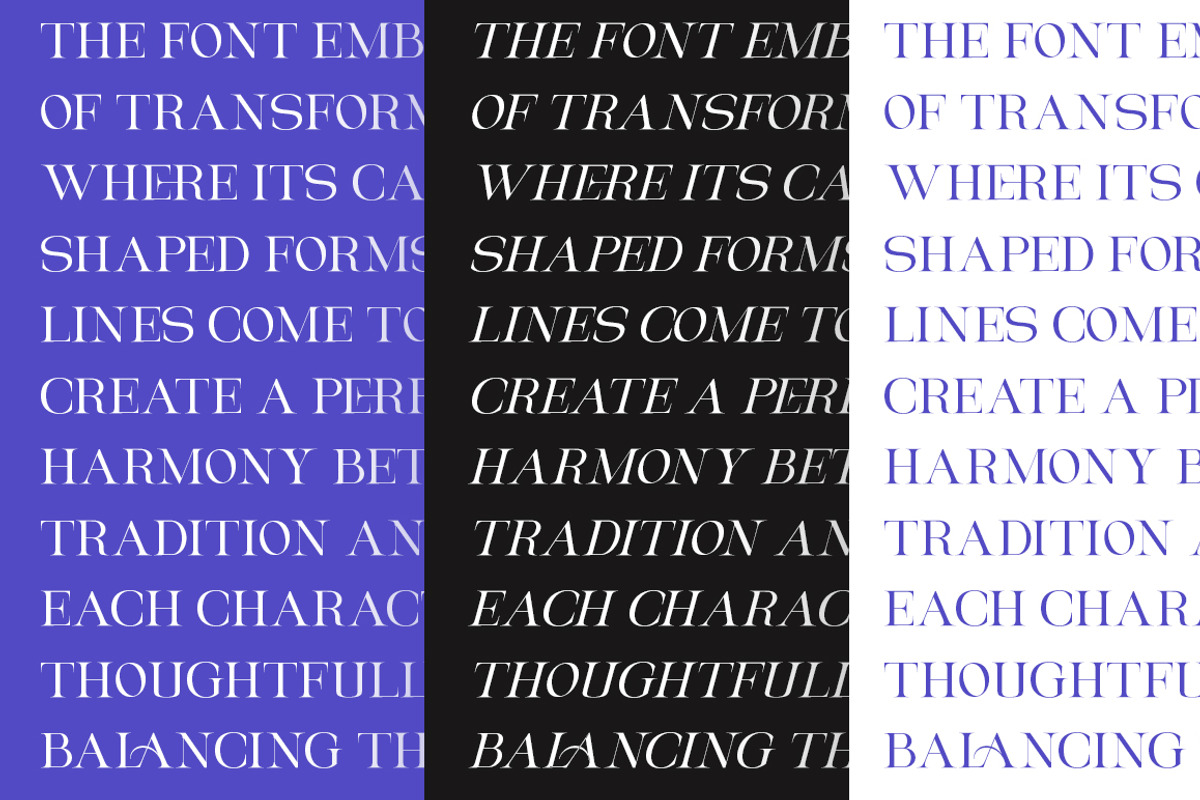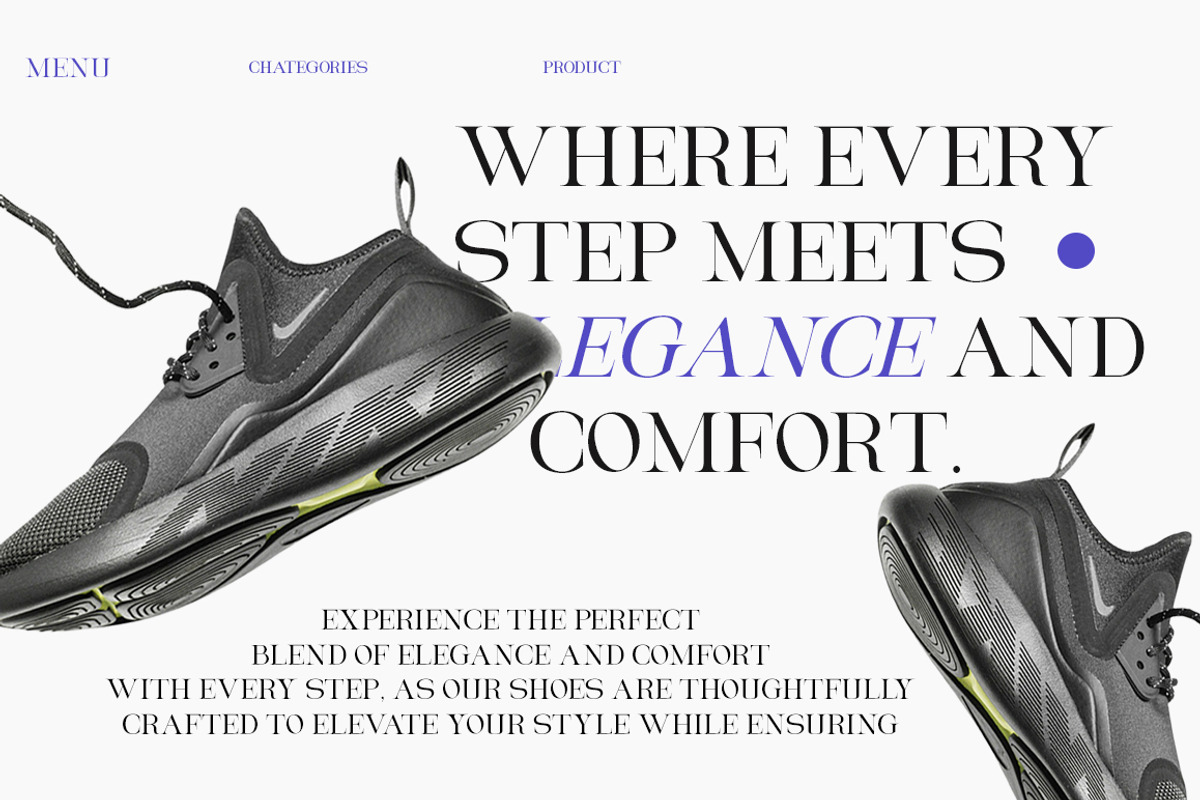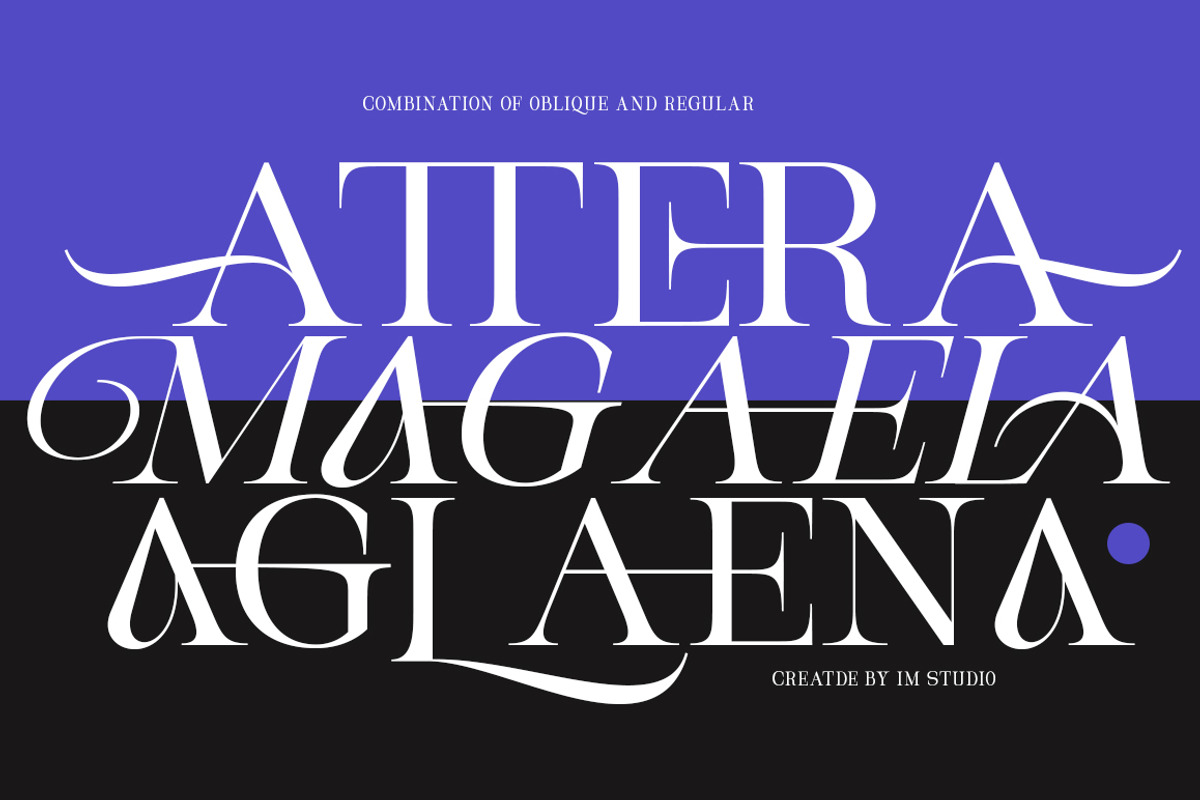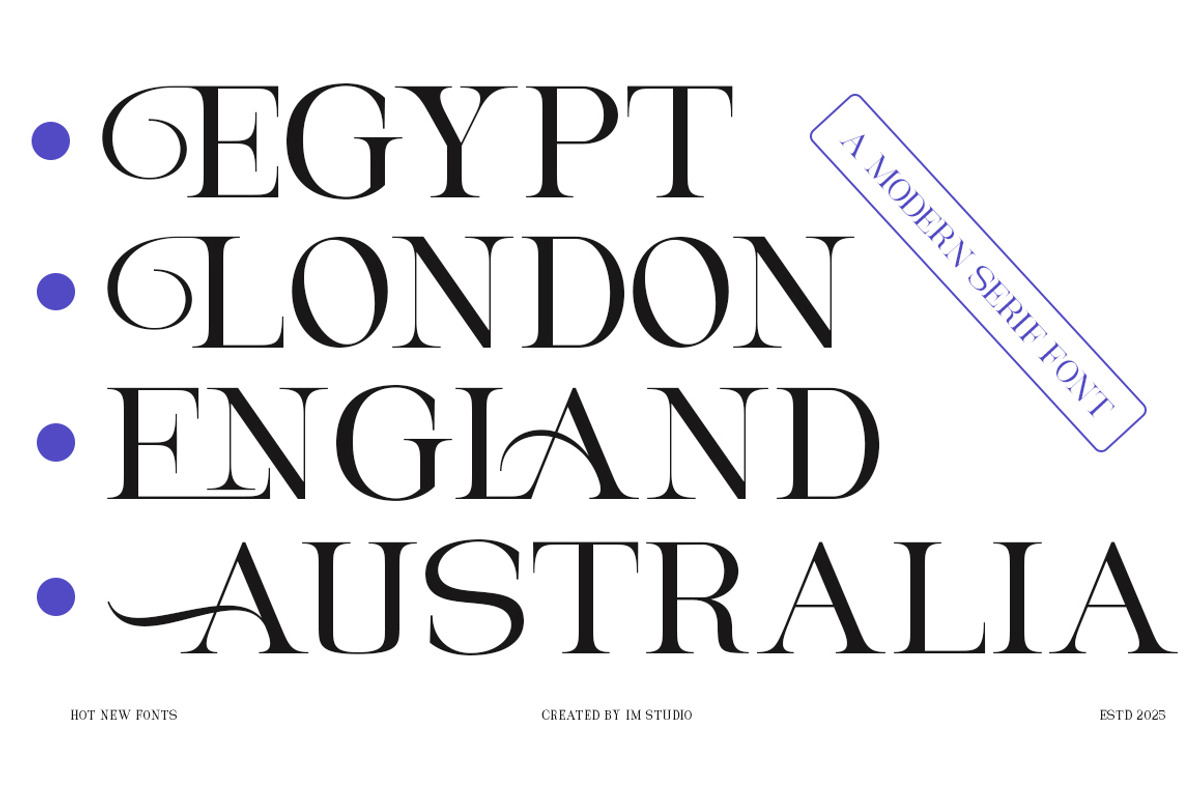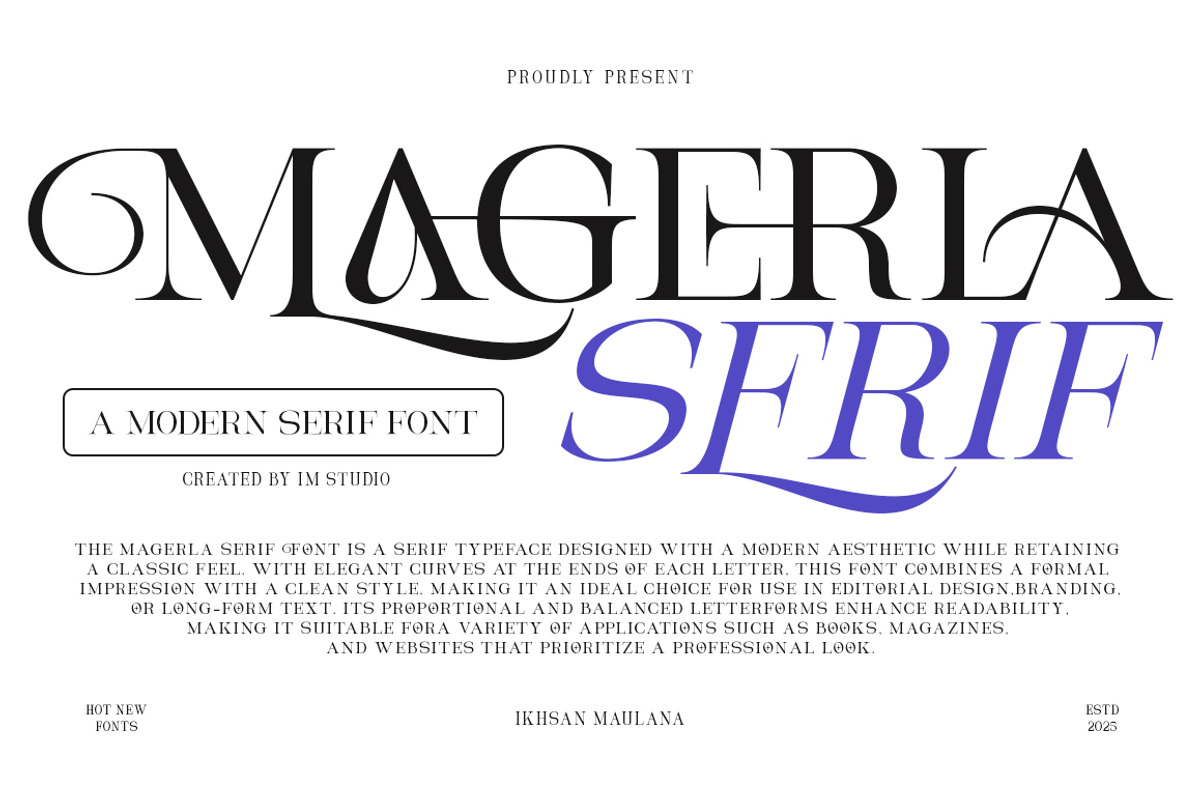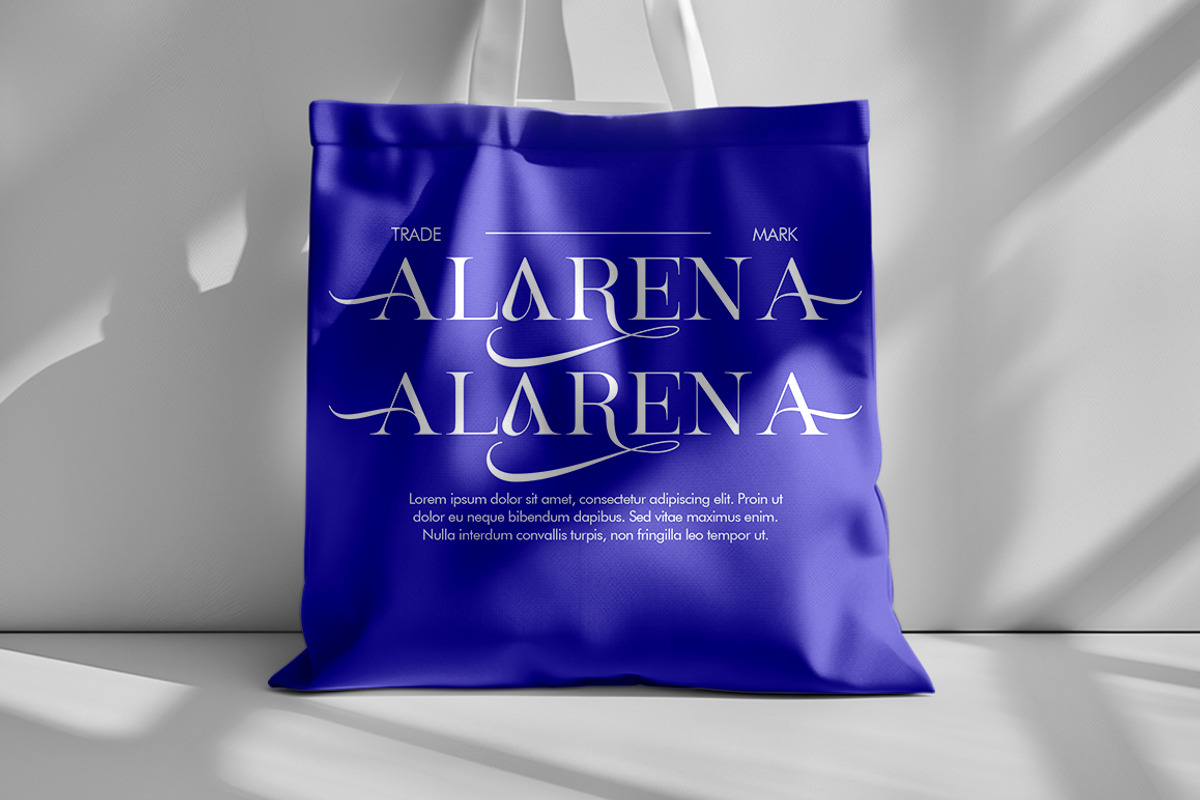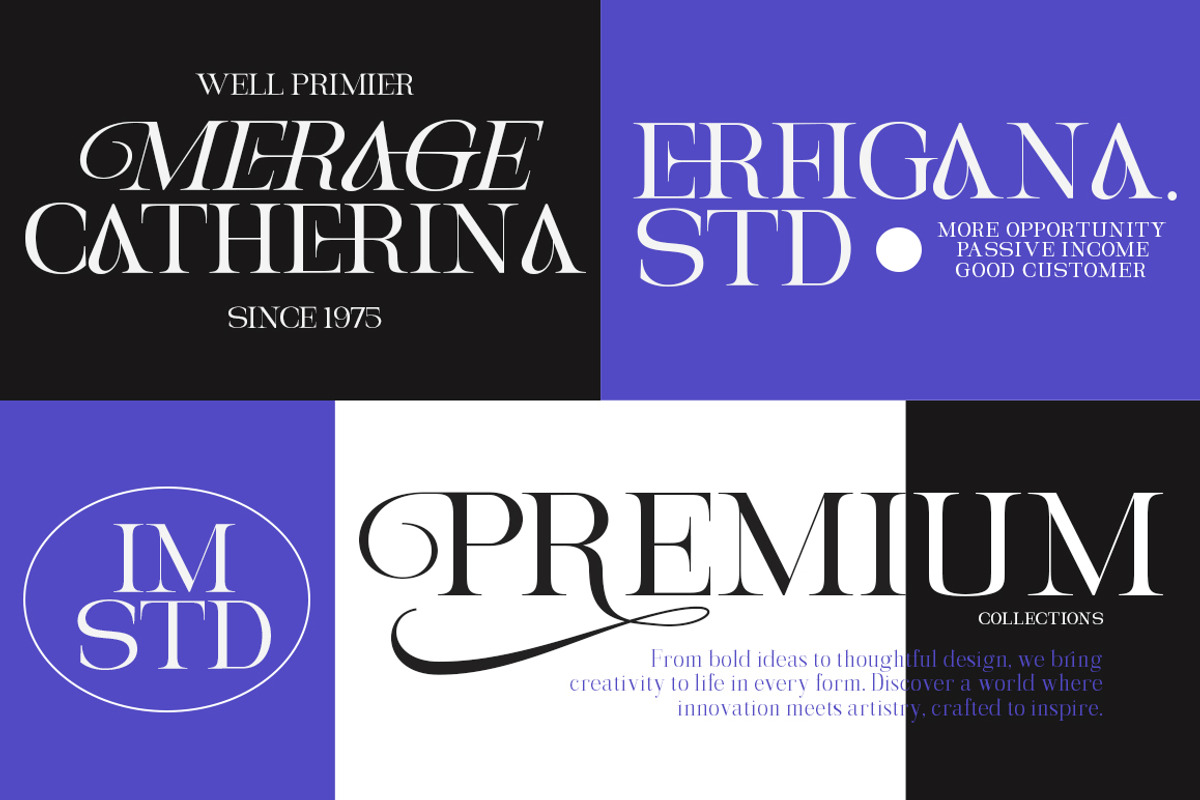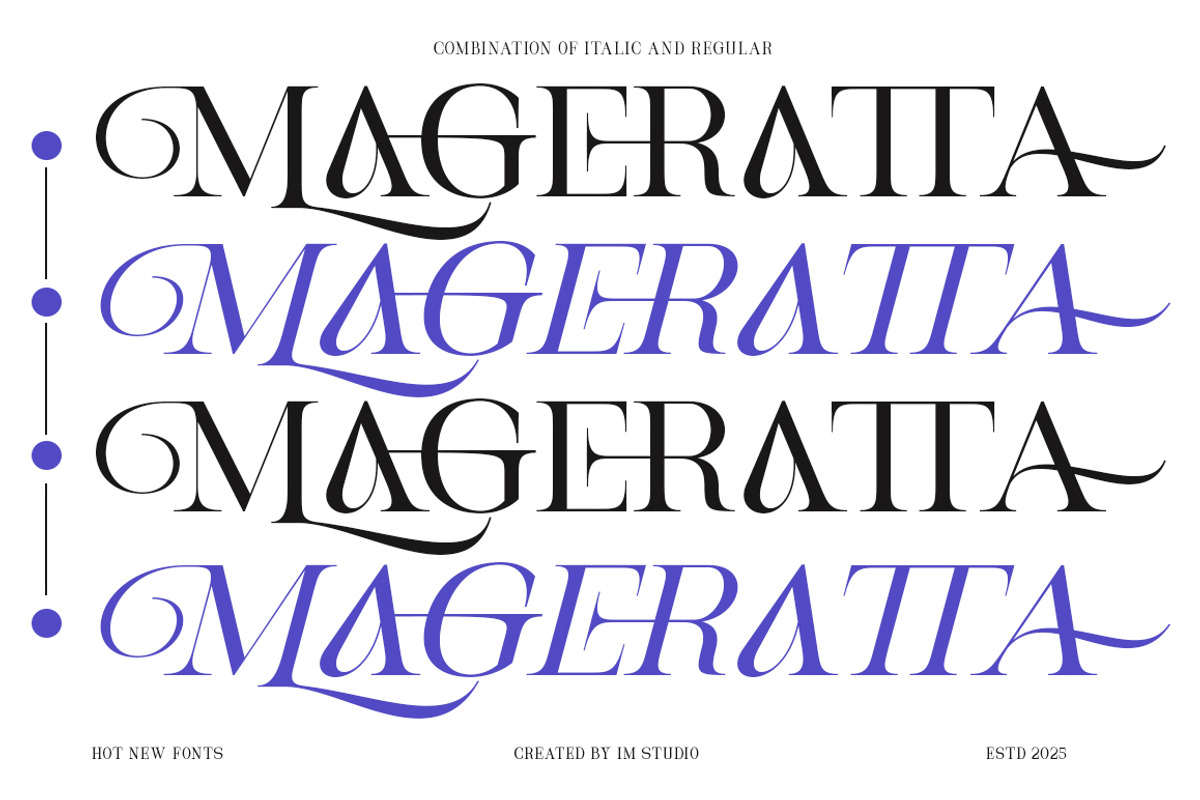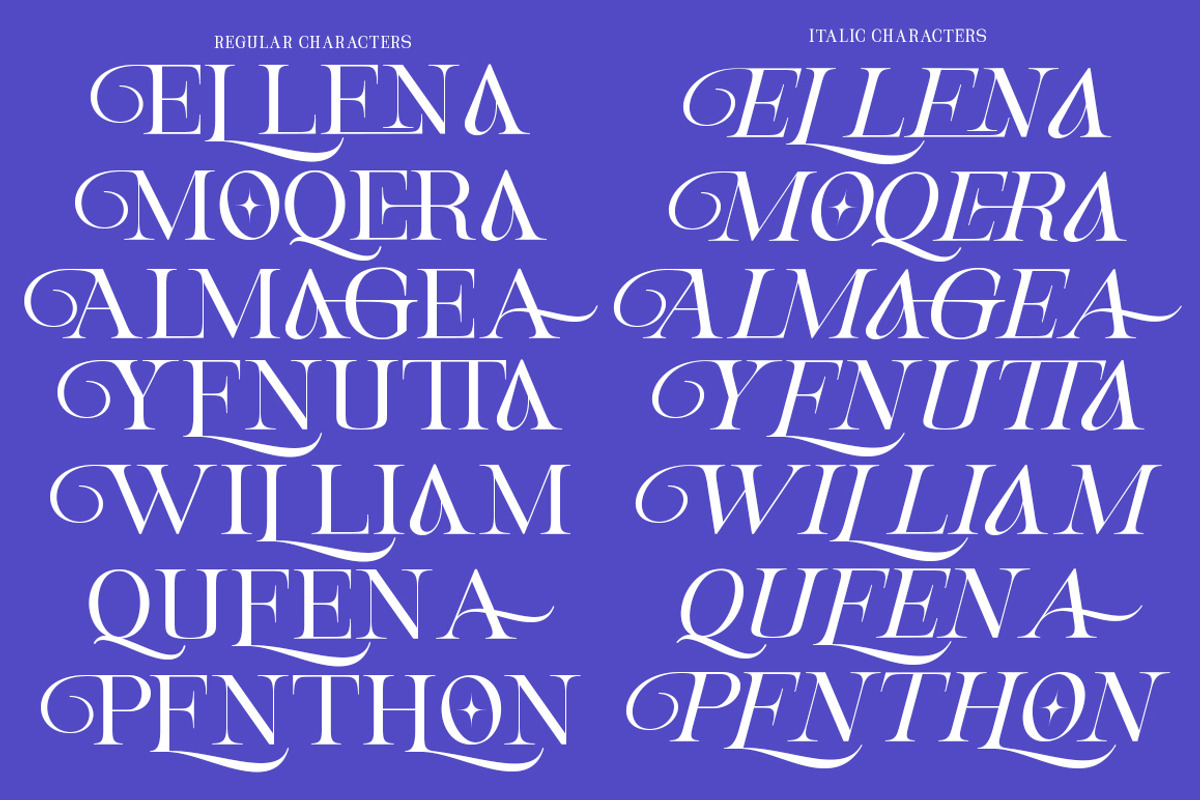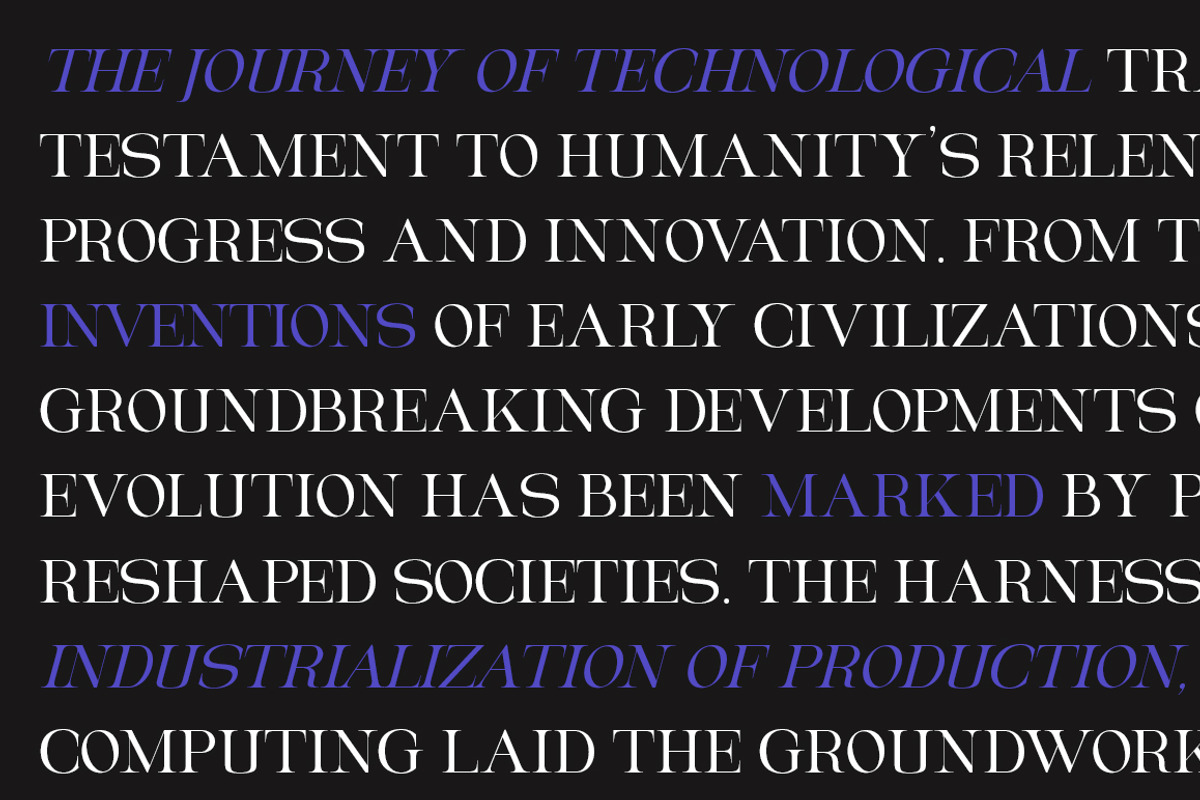
Magerla Serif
Say hello to Magerla Serif :) is a gorgeous multi-weight and height typeface product - In Regular and Italic styles. Two handy fonts included.
Magerla Serif is stylish, made to be very versatile - it can transform into a sophisticated, refined project - or a bold and daring retro design. Just take your pick :) Use the Typeface tester below to type your text and try it out!